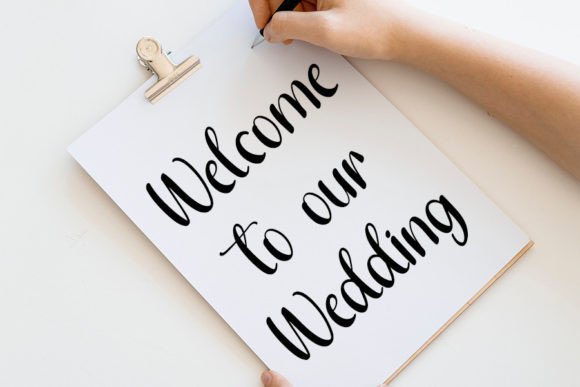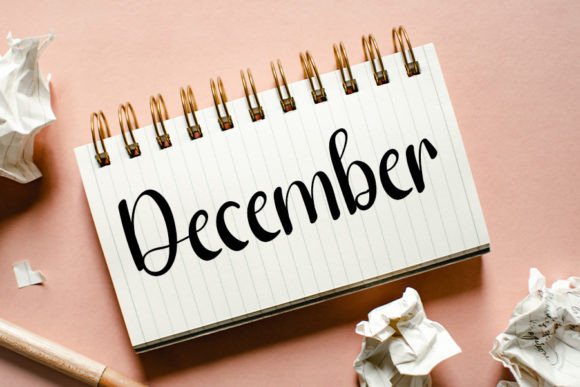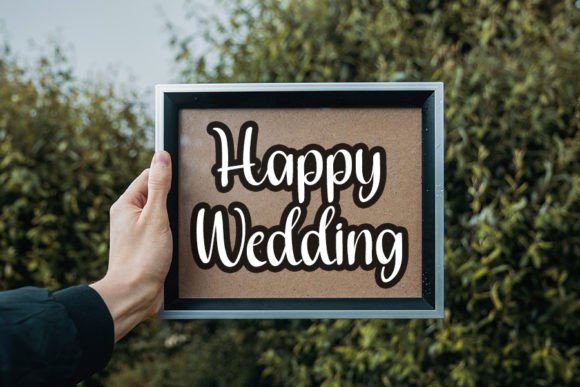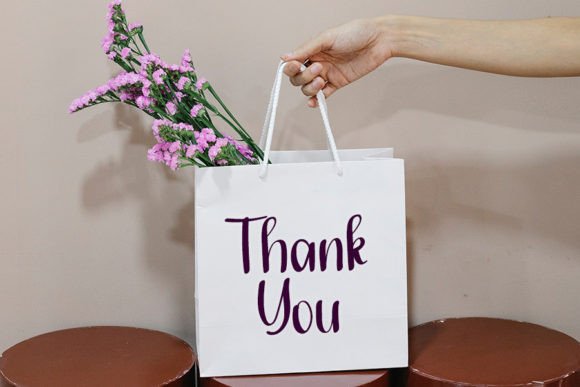
Wedding Font
Add Elegance and Charm with Wedding Font
Wedding Font is a neat and beautiful handwritten typeface designed to bring an elegant touch to your favorite projects. Its timeless and distinct style makes it ideal for wedding-related designs. Whether you are creating invitations, branding materials, or social media content, Wedding Font adds a refined and charming look.
Moreover, the font’s graceful strokes and clean lines give your designs a classic yet fresh feel that stands out.
Versatile Uses for Wedding Font
WeddingFont fits well in a variety of design projects, including:
• Wedding invitations and event stationery
• Bridal shower and engagement party materials
• Brand logos and elegant identities
• Social media graphics and promotional content
• Posters, flyers, and event signage
Thanks to its elegant handwritten style, WeddingFont adds warmth and sophistication to your work.
It also features balanced kerning and spacing, ensuring your text is clear and visually appealing across different sizes and mediums.
Why Designers Choose Wedding Font
Designers and creatives love WeddingFont for its elegant and timeless handwriting style. It adds a personal and professional touch that enhances the beauty of any project. Whether you’re a professional or a hobbyist, WeddingFont helps your work look polished and memorable.
Use WeddingFont to bring grace and charm to your next creative design.